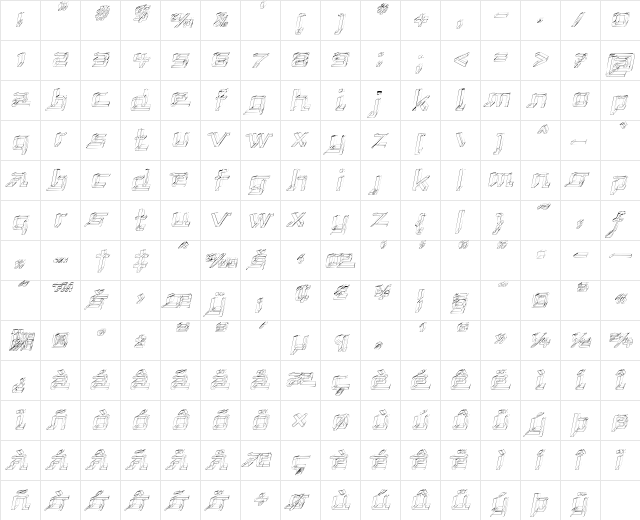
Republika - Sktech Italic
Design Context for Republika - Sktech Typeface
Republika - Sktech has a distinctly futuristic character, with geometric precision and clean angles that feel at home in technology, gaming, and sci-fi contexts. Its italic angle brings a sense of urgency and motion to the letterforms.